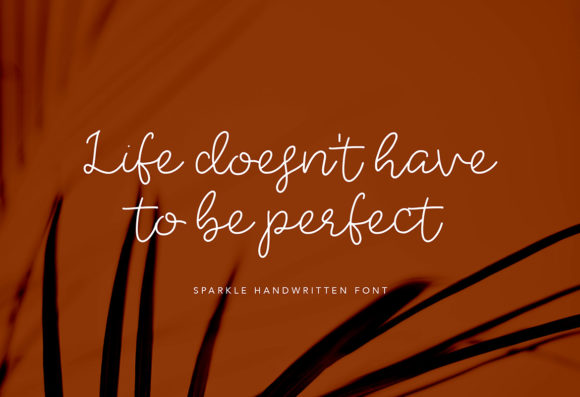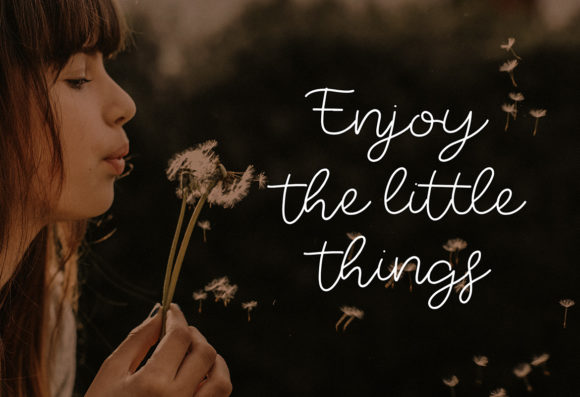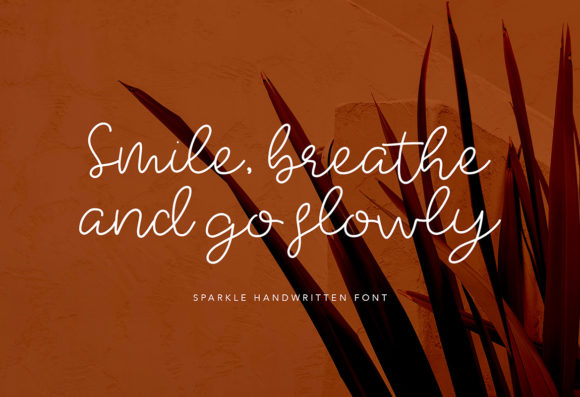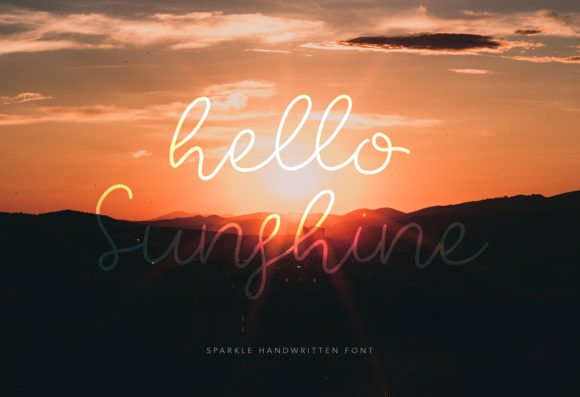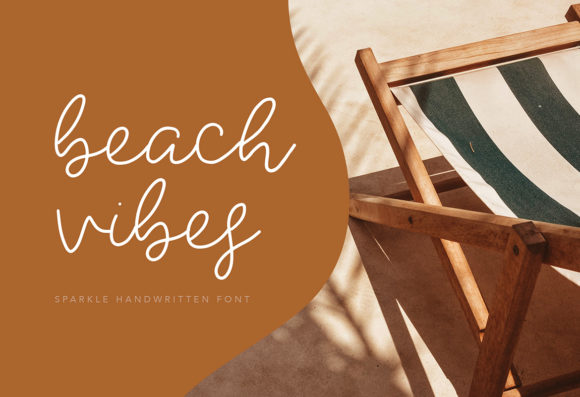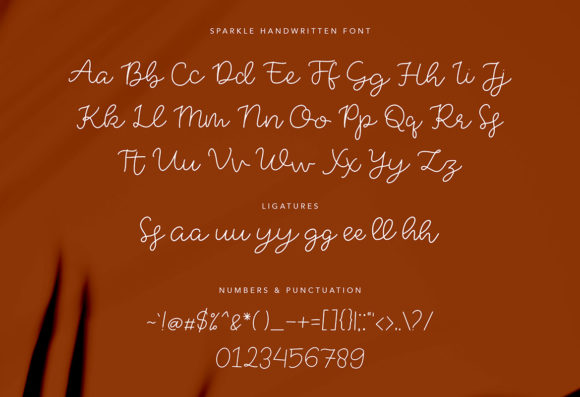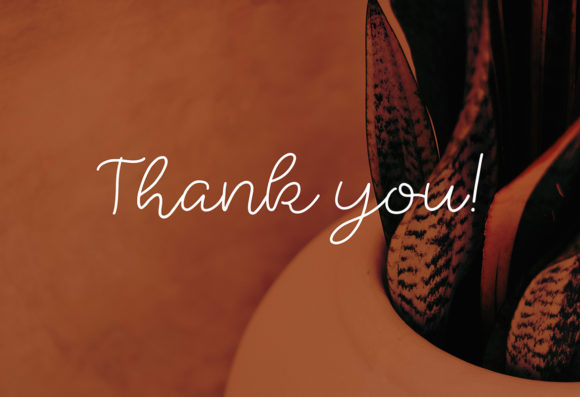
Sparkle Font
About Sparkle Font
Sparkle is a delightful and stylish handwritten font that exudes a sense of charm and elegance. Its sweet and delicate design makes it a versatile choice for various design projects. Here are some creative ideas on how to use Sparkle font to add a touch of sophistication to your designs:
1. Logo and Branding: Create a unique and elegant logo for your brand using Sparkle font. Its stylish appearance will give your brand a touch of sophistication and class.
2. Wedding Invitations: Design elegant and romantic wedding invitations with Sparkle font to set the tone for a beautiful and memorable event.
3. Stationery: Customize your personal or business stationery, such as letterheads and envelopes, with Sparkle font to add a touch of elegance and refinement.
4. Greeting Cards: Design classy and stylish greeting cards for various occasions like birthdays, anniversaries, or thank you notes.
5. Social Media Graphics: Use Sparkle font to craft elegant and eye-catching posts for your social media platforms, making your content stand out.
6. Blog Graphics: Enhance your blog’s visual appeal with Sparkle font in your blog headers, featured images, and blog post graphics.
7. Product Packaging: Incorporate Sparkle font into product packaging to add a touch of sophistication and appeal to your products.
8. Quote Prints: Create elegant quote prints with Sparkle font to decorate your home or office space with inspiring messages.
9. Art Prints: Design stylish and chic art prints featuring Sparkle font with illustrations or motivational messages for wall decor.
10. Fashion Branding: Use Sparkle font in fashion branding, such as clothing tags, labels, and marketing materials, to add a sense of elegance and style.
11. Book Covers: Create captivating book covers using Sparkle font for genres like romance, poetry, or self-help books.
12. Menu Cards: Design chic and sophisticated menu cards for upscale restaurants or special events with Sparkle font to leave a lasting impression on customers.
The versatility of Sparkle font allows you to add a touch of elegance and refinement to a wide range of design projects. Its stylish and balanced appearance will give your creations a sophisticated edge, making them stand out and leaving a positive impact on your audience. So, whether it’s for personal or professional use, let Sparkle font bring a touch of sparkle and grace to your designs!